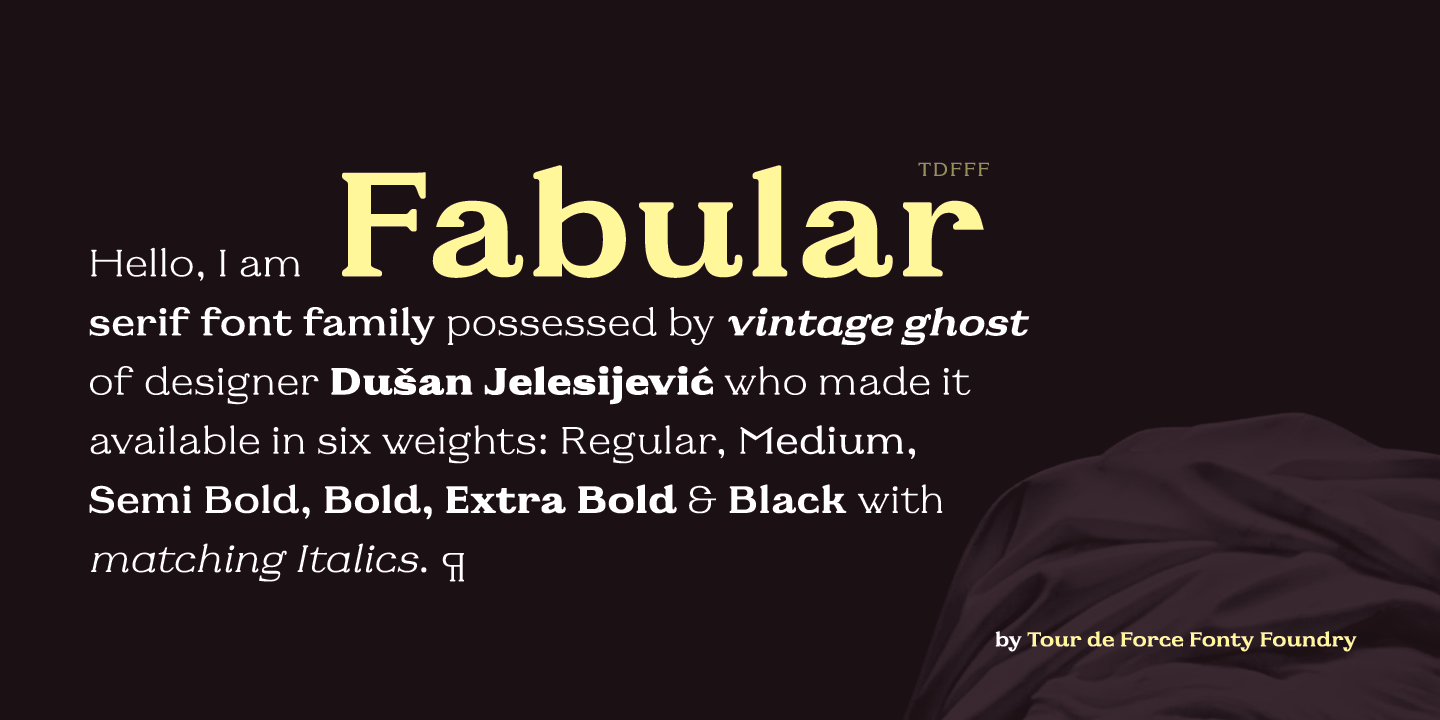
Fabular Font is perfect for children's storybook publishing, fairy tale illustration projects, fantasy gaming interfaces, whimsical theater productions, magical storytelling apps, enchanted theme park signage, mythical creature merchandise, bedtime story audio covers, imaginative educational materials, and captivating narrative-driven marketing campaigns.
What makes Fabular Font so exciting is its extraordinary ability to weave the timeless magic of storytelling through enchantingly crafted letterforms that seem drawn from the pages of ancient fairy tales and blessed with the power to transport readers into realms where anything is possible and every word holds the promise of adventure. This font embodies the essence of narrative wonder and mythical storytelling, featuring whimsically designed characters that appear to have been penned by master storytellers who understand that the greatest tales begin with letters that capture the imagination before the story even unfolds. The magical letter shapes create an atmosphere of endless possibility and childlike wonder, making every word feel like the opening line of an epic adventure that could change the world through the power of imagination.
The Fabular Font family includes Light, Regular, Medium, Bold, and Storybook variations, along with fairy tale symbols and narrative decorative elements. Each style maintains the font's distinctive storytelling character while offering versatility for different narrative applications, from gentle bedtime story text to bold chapter headings that announce the beginning of extraordinary adventures and magical journeys.
This enchanting typeface brings authentic storytelling aesthetics to contemporary design projects. The Fabular Font Free Download offers designers an invaluable resource for creating memorable brand identities that communicate imagination, wonder, and narrative excellence. Whether you're developing children's publishing materials, designing fantasy entertainment branding, or creating magical educational communications, this font delivers unmatched storytelling appeal and fairy tale authenticity.
The masterfully crafted letterforms in Fabular Font feature flowing curves and whimsical flourishes that mirror the organic rhythm of spoken stories and the gentle cadence of voices that have been sharing tales around hearth fires since the dawn of human imagination. Each character has been designed to maintain perfect readability while expressing the timeless magic and universal appeal that make great stories resonate across cultures and generations. The font's distinctive personality makes it ideal for applications requiring genuine narrative charm and storytelling authority.
Publishing and entertainment professionals appreciate how Fabular Font effortlessly communicates creativity, imagination, and storytelling expertise while appealing to audiences of all ages who seek authentic narrative experiences that celebrate the fundamental human need for stories that inspire, educate, and transport us beyond the boundaries of everyday reality. The comprehensive character set includes storytelling symbols, fairy tale ornaments, narrative elements, and extensive international language support, ensuring global compatibility while preserving its distinctive fable-inspired identity. This makes it an invaluable resource for publishers, entertainment companies, educational institutions, and any organization seeking typography that embodies the eternal power of storytelling and the magical ability of words to create worlds, inspire dreams, and remind us that within every letter lies the potential for extraordinary adventures that begin whenever someone opens a book and discovers that the greatest magic happens when imagination meets the written word.